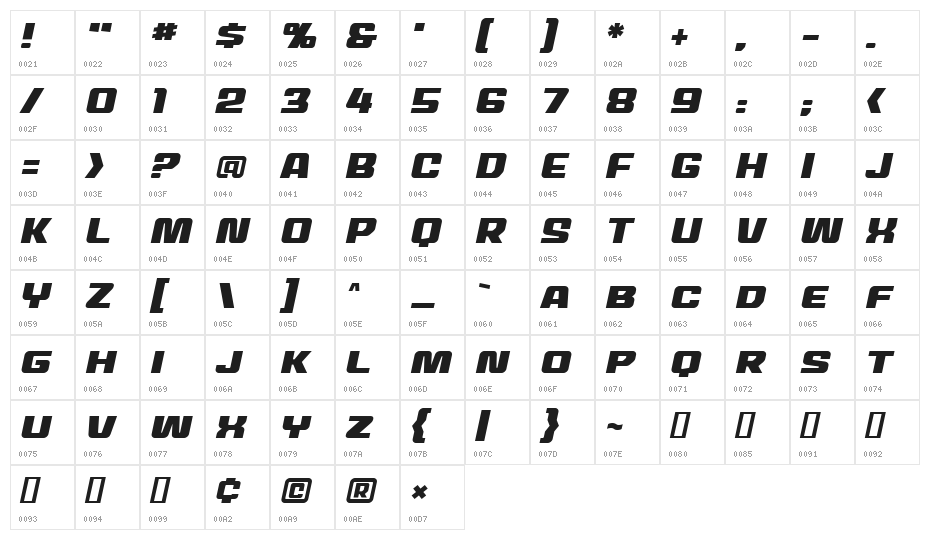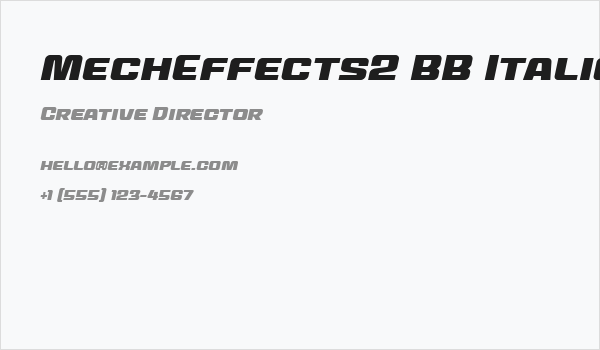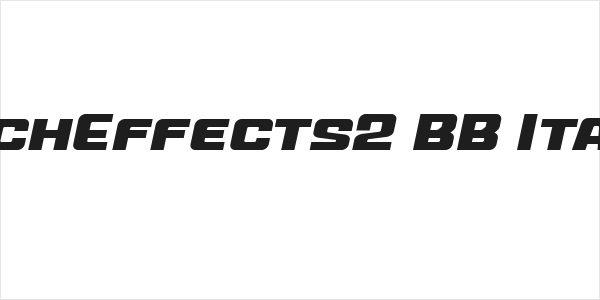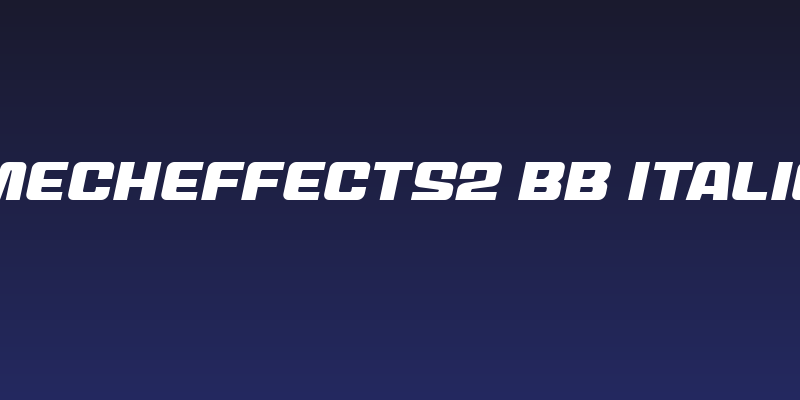
MechEffects2 BB Italic Font
MechEffects2 BB Italic Description
This font features a bold, italicized style with a futuristic and mechanical aesthetic. The characters are robust and angular, with a strong presence that suggests movement and speed. The uppercase letters are particularly striking, with a consistent slant that enhances the italic effect. The numbers and special characters maintain the same boldness and angularity, ensuring a cohesive look across all glyphs. The font's design is ideal for projects that require a modern, tech-inspired look, such as video game titles, technology branding, or automotive advertisements.
| Proposed Projects | Ideal for video game titles, tech branding, automotive ads, and futuristic designs. |